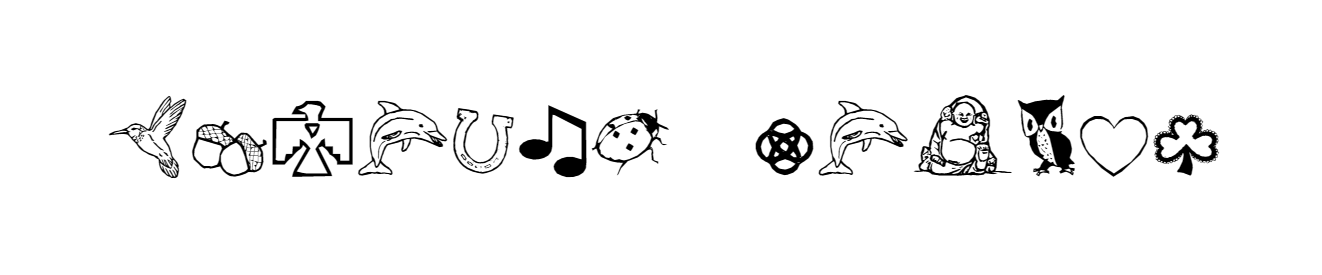
Charming Symbols is a highly popular, classic esoteric dingbat and icon typeface designed by Iacy. Released before 2005, it completely replaces standard alphanumeric text characters with unique, pre-drawn silhouettes, emblems, and spiritual motifs, functioning as a specialized symbol toolkit rather than a readable alphabet.
Charming Symbols
Charming Symbols is a dingbats font (2003).